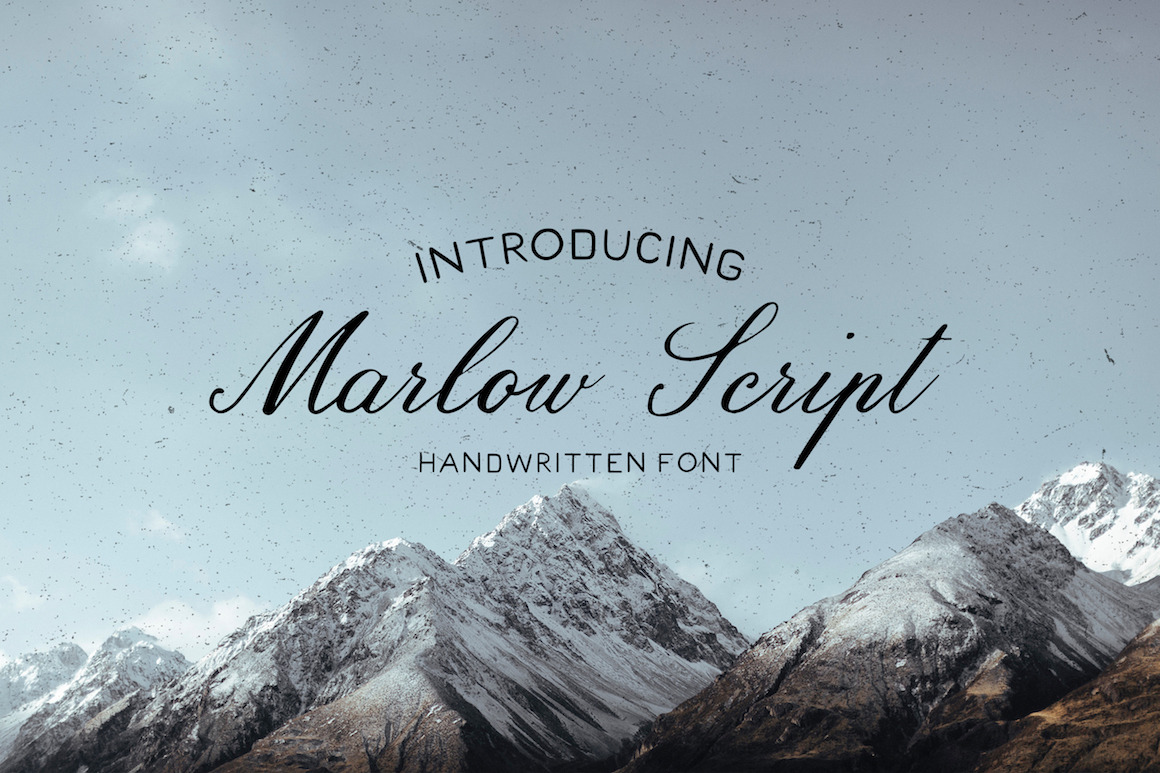
Marlow is a handmade script font in the copperplate style. This typeface includes all uppercase and lowercase letters. 23 swashes are included in a separated .ai file. It works great for both modern and vintage style work. Great for getting that *handcrafted look you've been looking for!